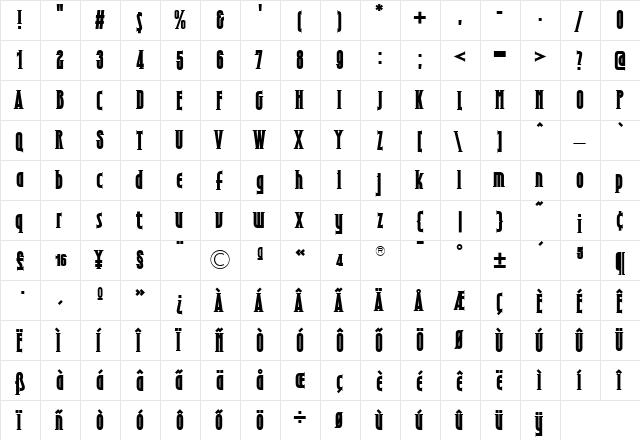
TFShotelmoderne Medium
Design Context for TFShotelmoderne Typeface
TFShotelmoderne is a composed and adaptable typeface that performs quietly and consistently across a wide range of design contexts.